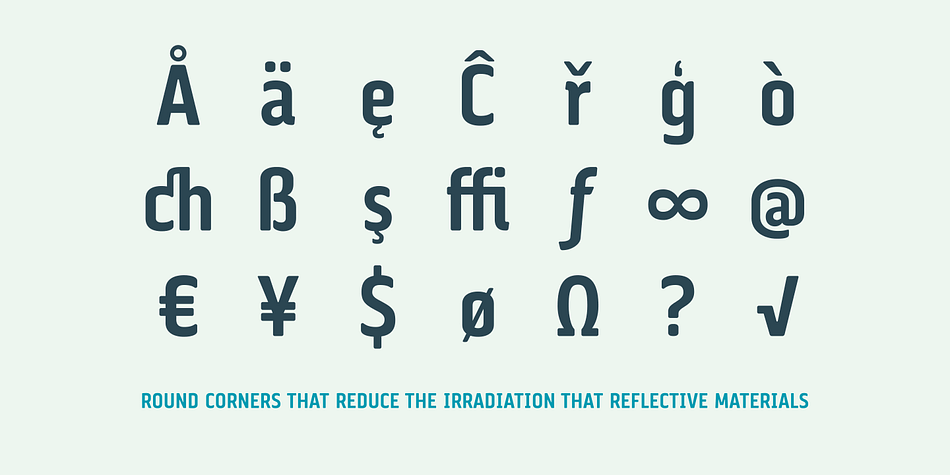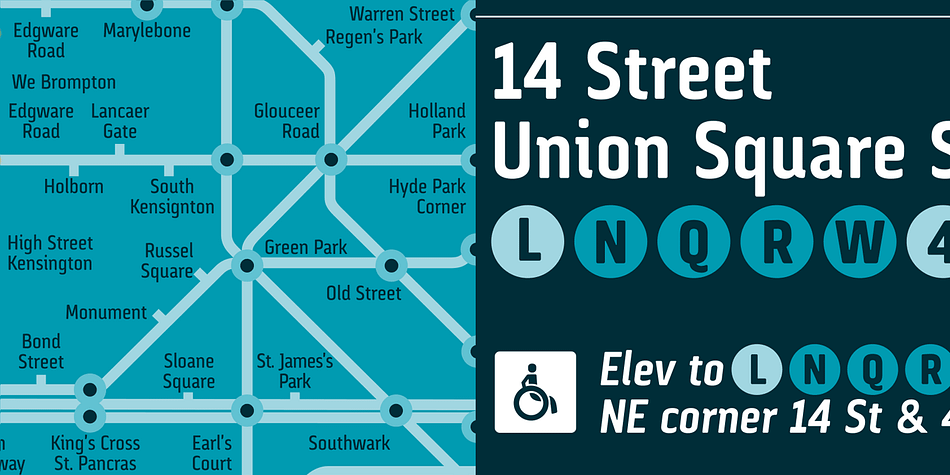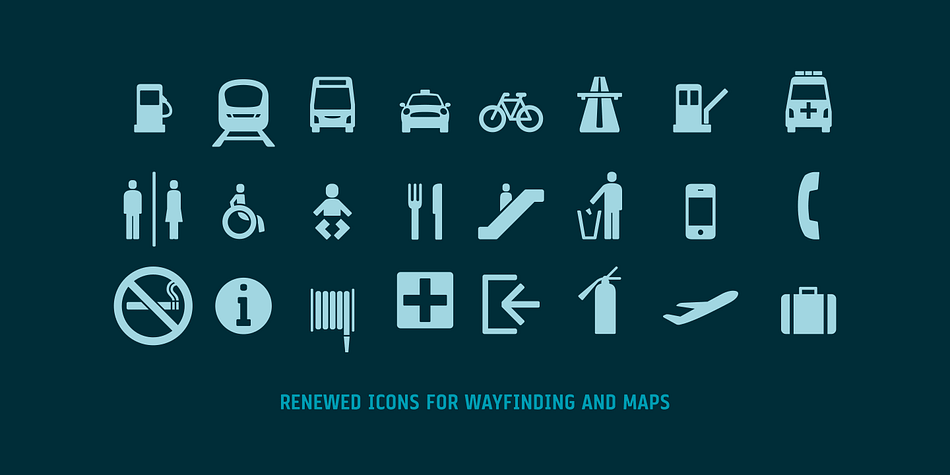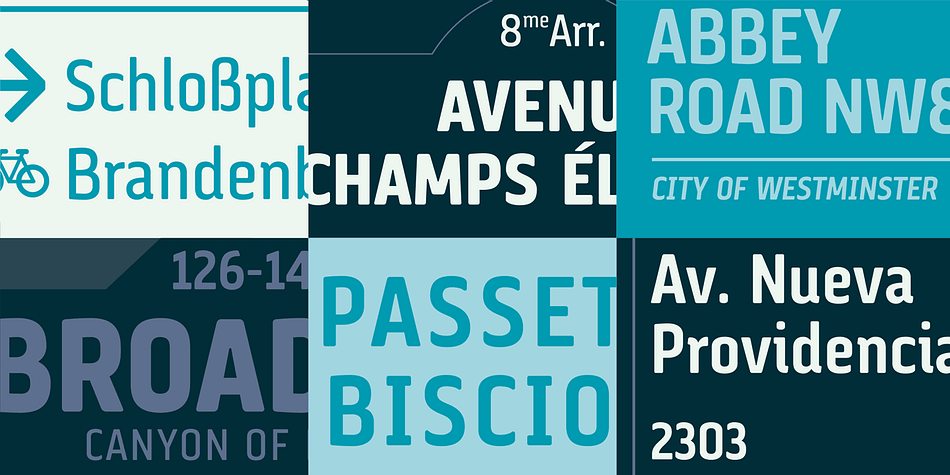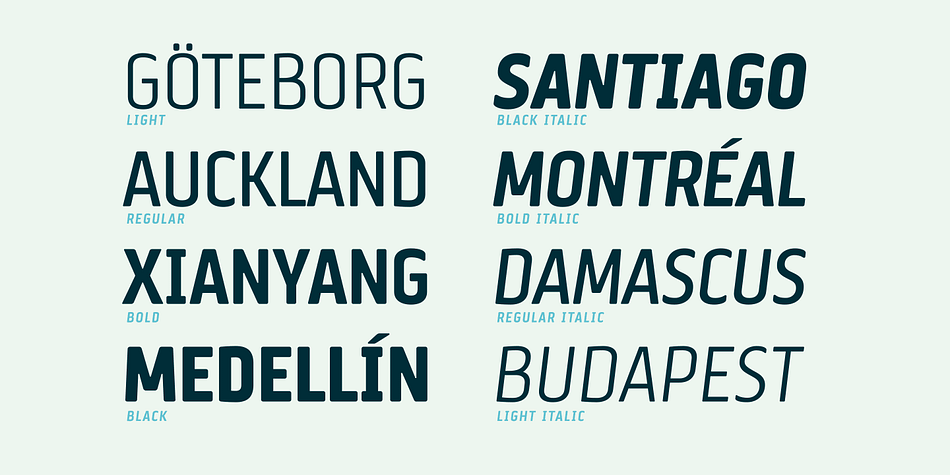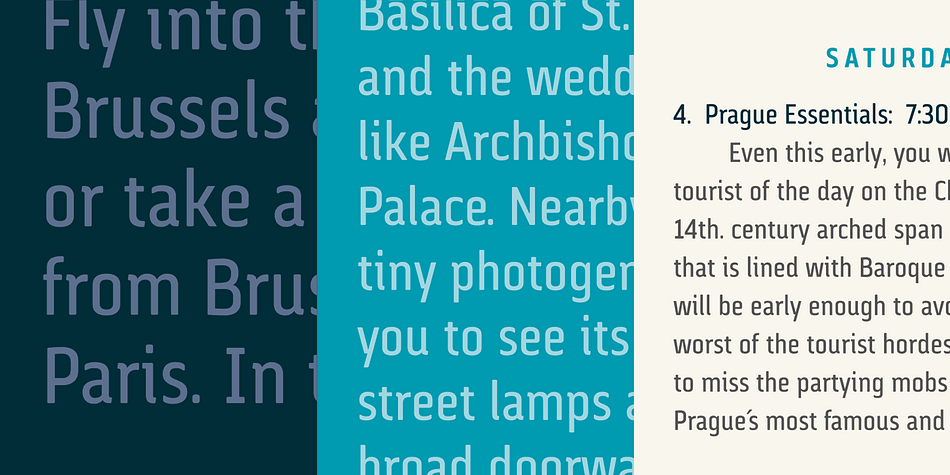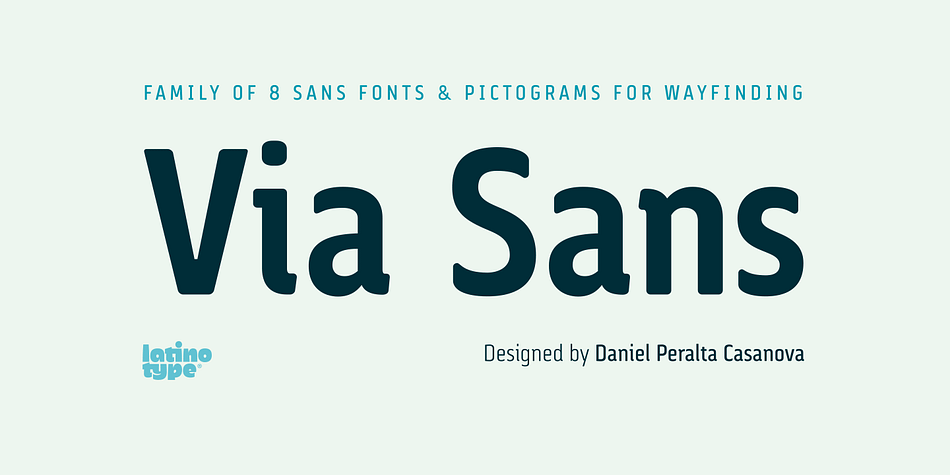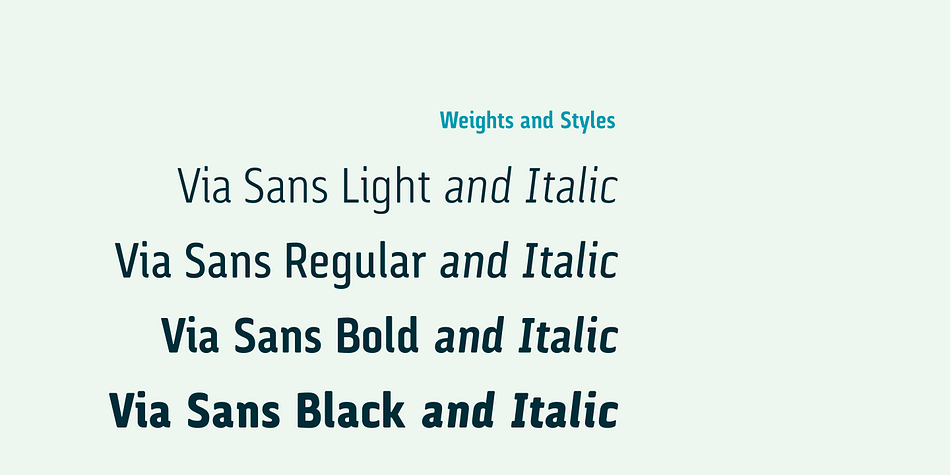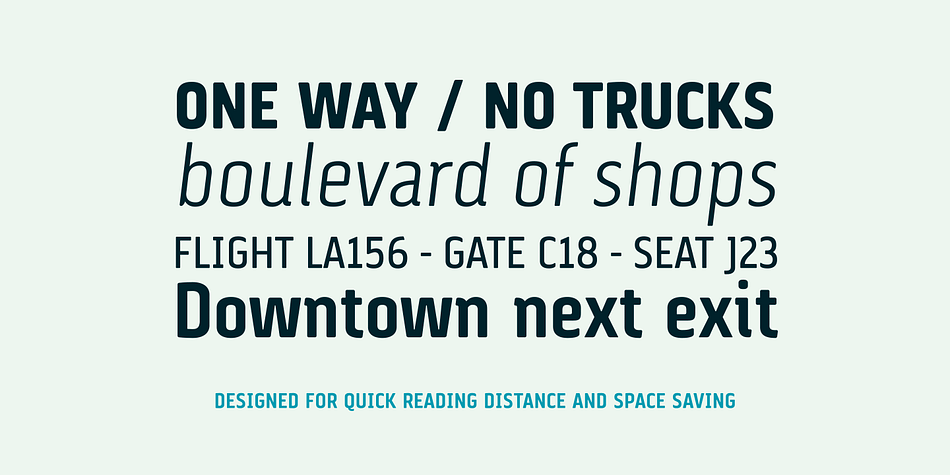
Via Sans is a dingbat and sans serif font family. This typeface has nine styles and was published by Latinotype.
Via Sans is a font inspired by classics like Steile Futura and Din 1451, with neo-humanist characteristics. It was designed as a font for fast reading from a distance, which saves horizontal space in the text composition, making it a very good alternative when composing long phrases in reduced spaces, with high readability in various sizes due to its ample counters. With round corners that reduce the irradiation that reflective materials in signs produce.
This family is composed by 8 fonts, 4 weight variations and 4 inclination variations, which include European accents marks, ligatures, fractions, ordinals and tabular numbers, in addition to a pictogram set that complement applications for wayfinding and maps.